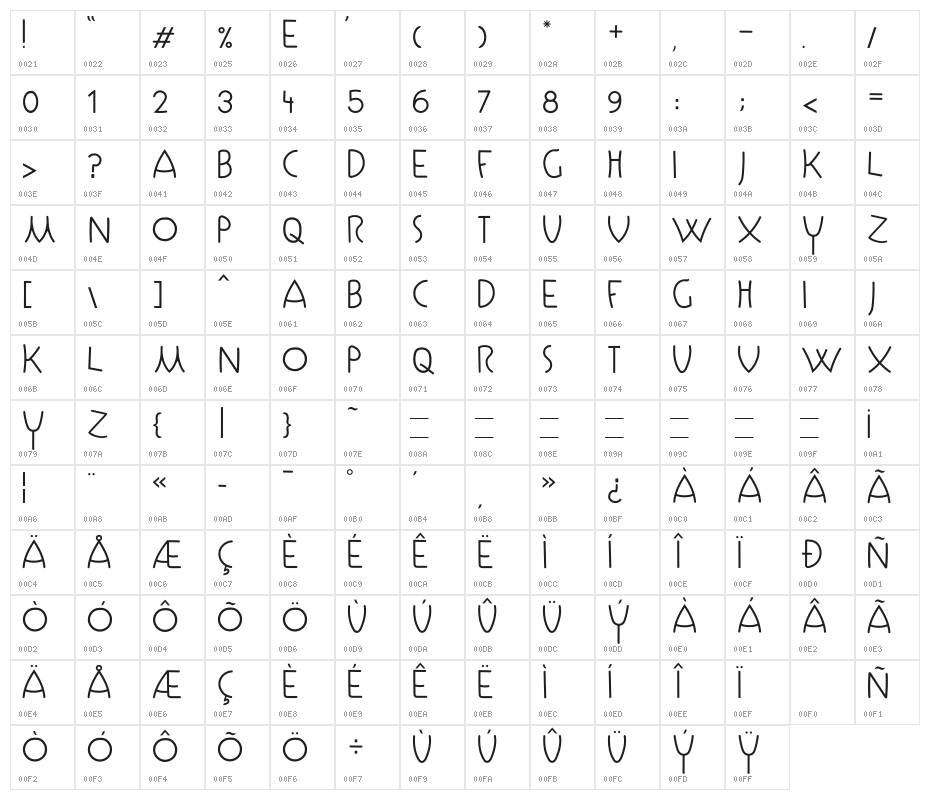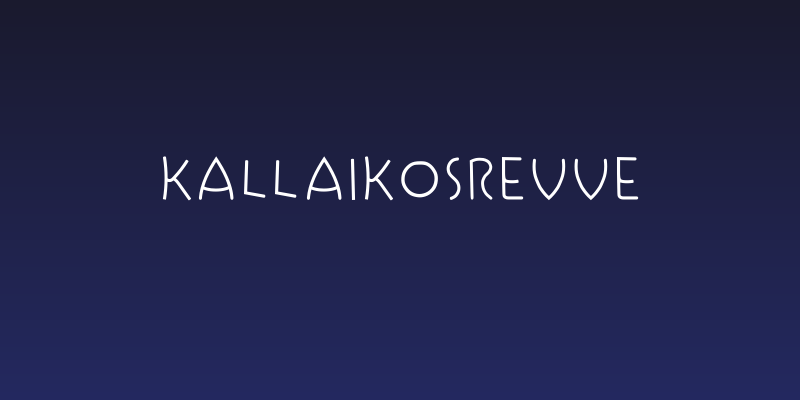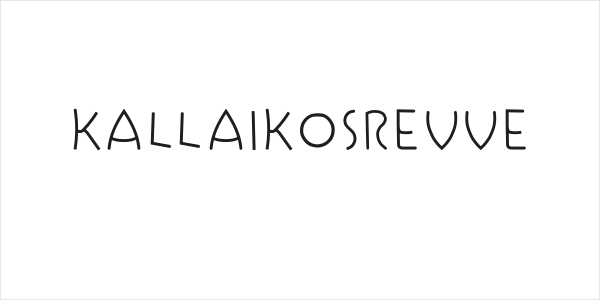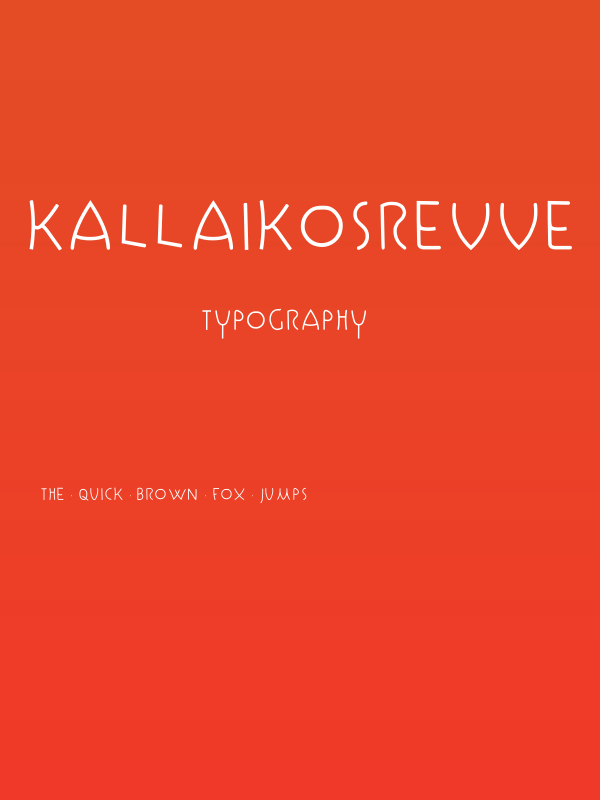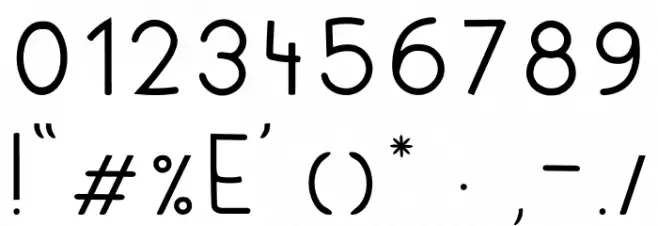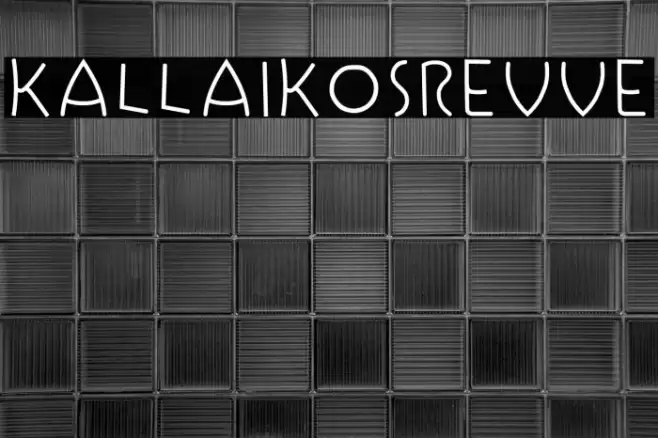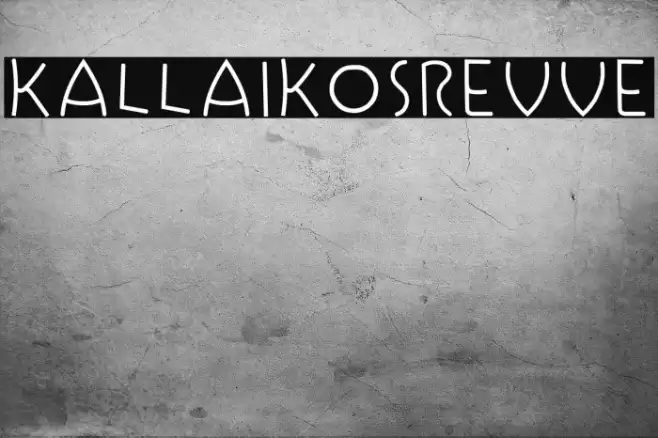
Kallaikosrevve Font
This font features a playful and whimsical design with a hand-drawn aesthetic. The characters are slightly irregular, giving it a casual and approachable feel. The strokes are consistent in weight, providing a uniform appearance across all letters and numbers. The rounded edges and slight tilt of some characters add to its friendly and informal style. This font is versatile, suitable for projects that require a touch of personality and creativity. The special characters maintain the same playful style, ensuring cohesion throughout any text.
| Proposed Projects | Ideal for children's books, greeting cards, playful branding, and creative posters. |